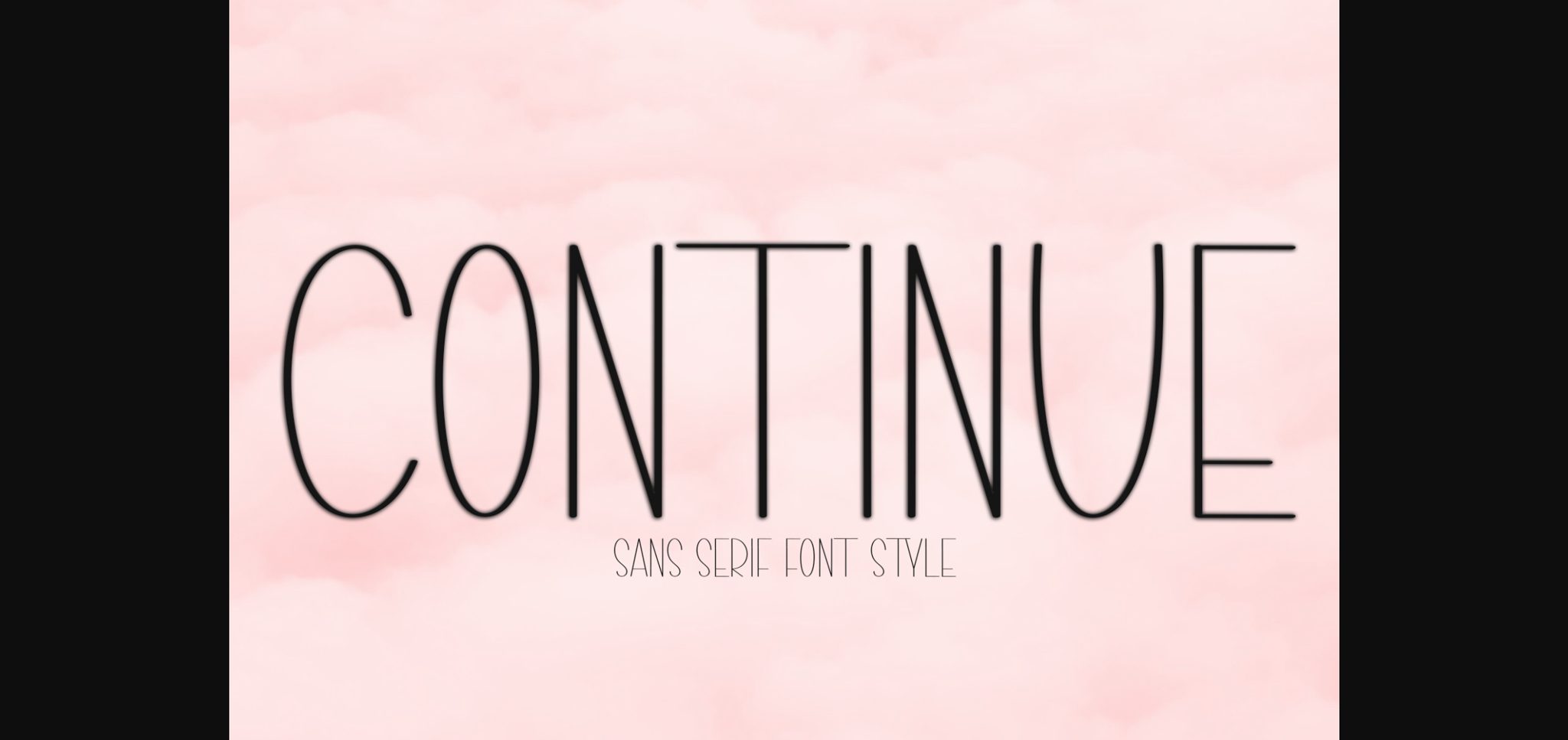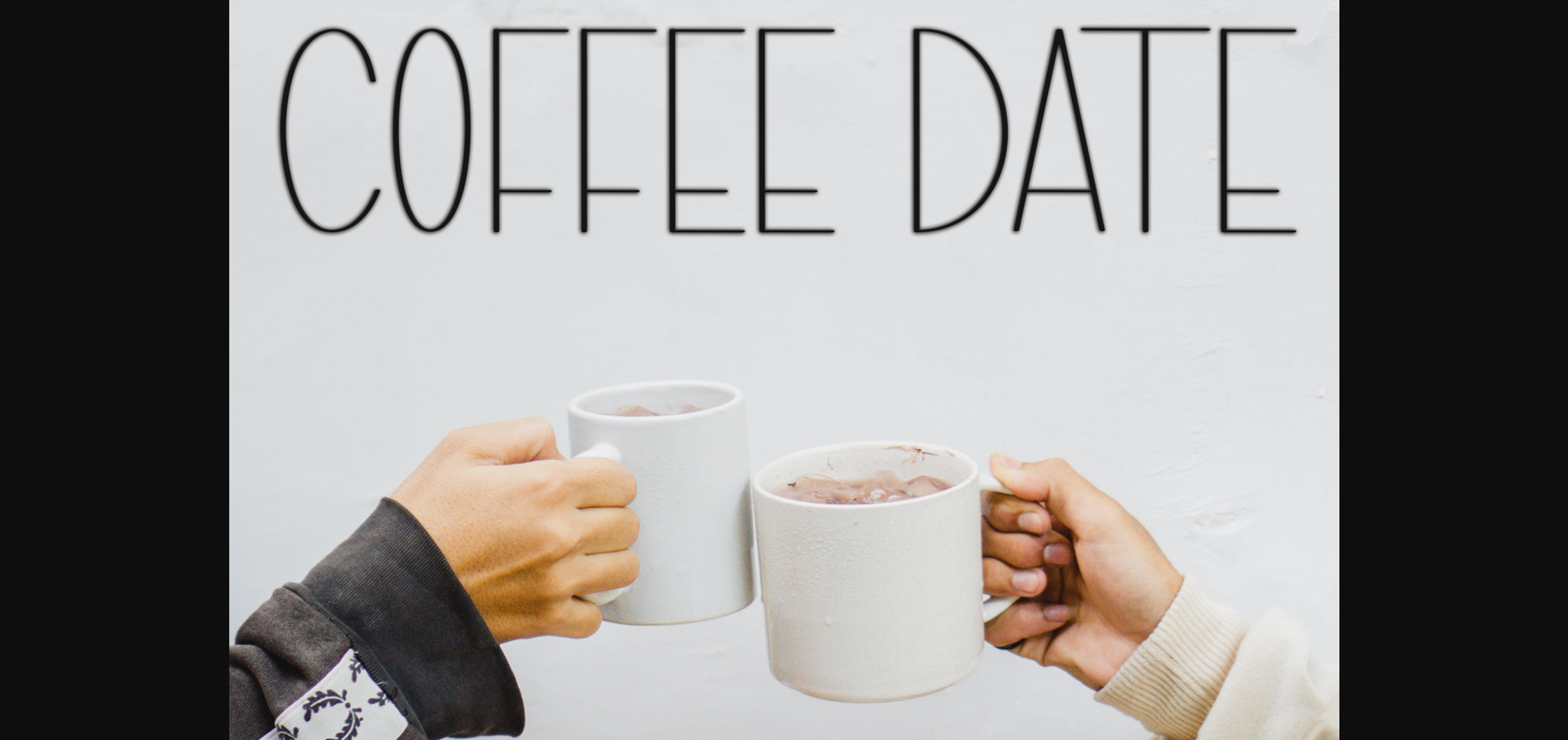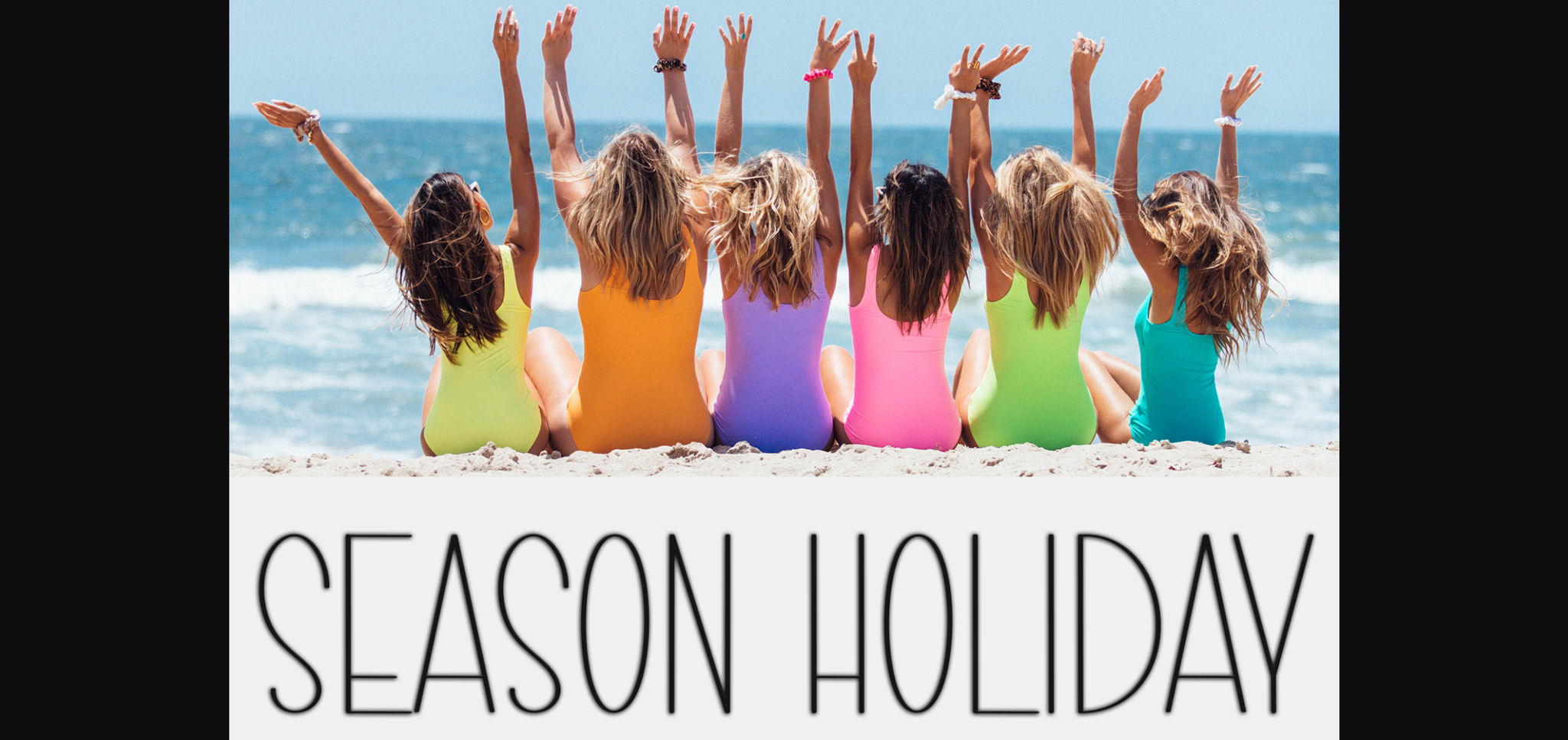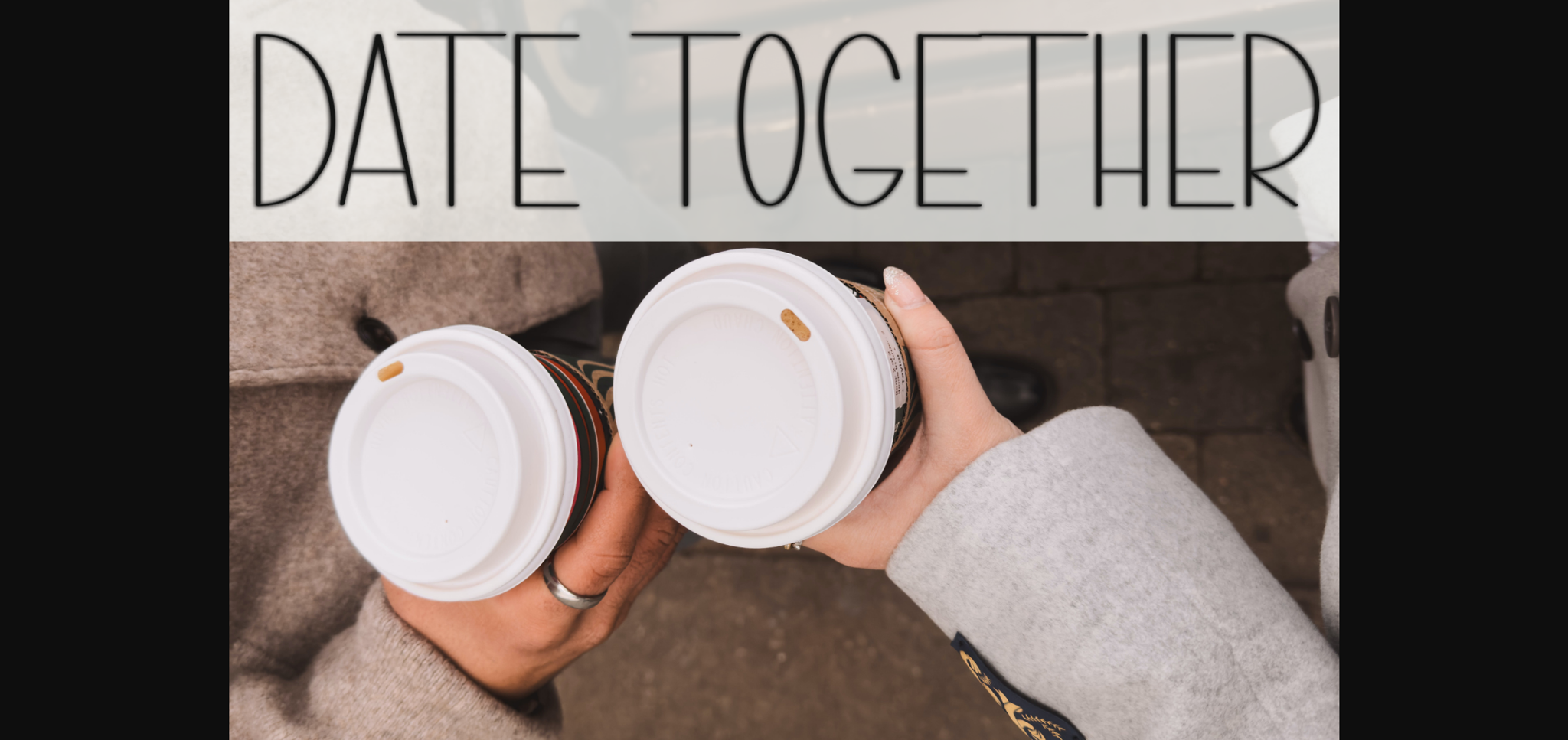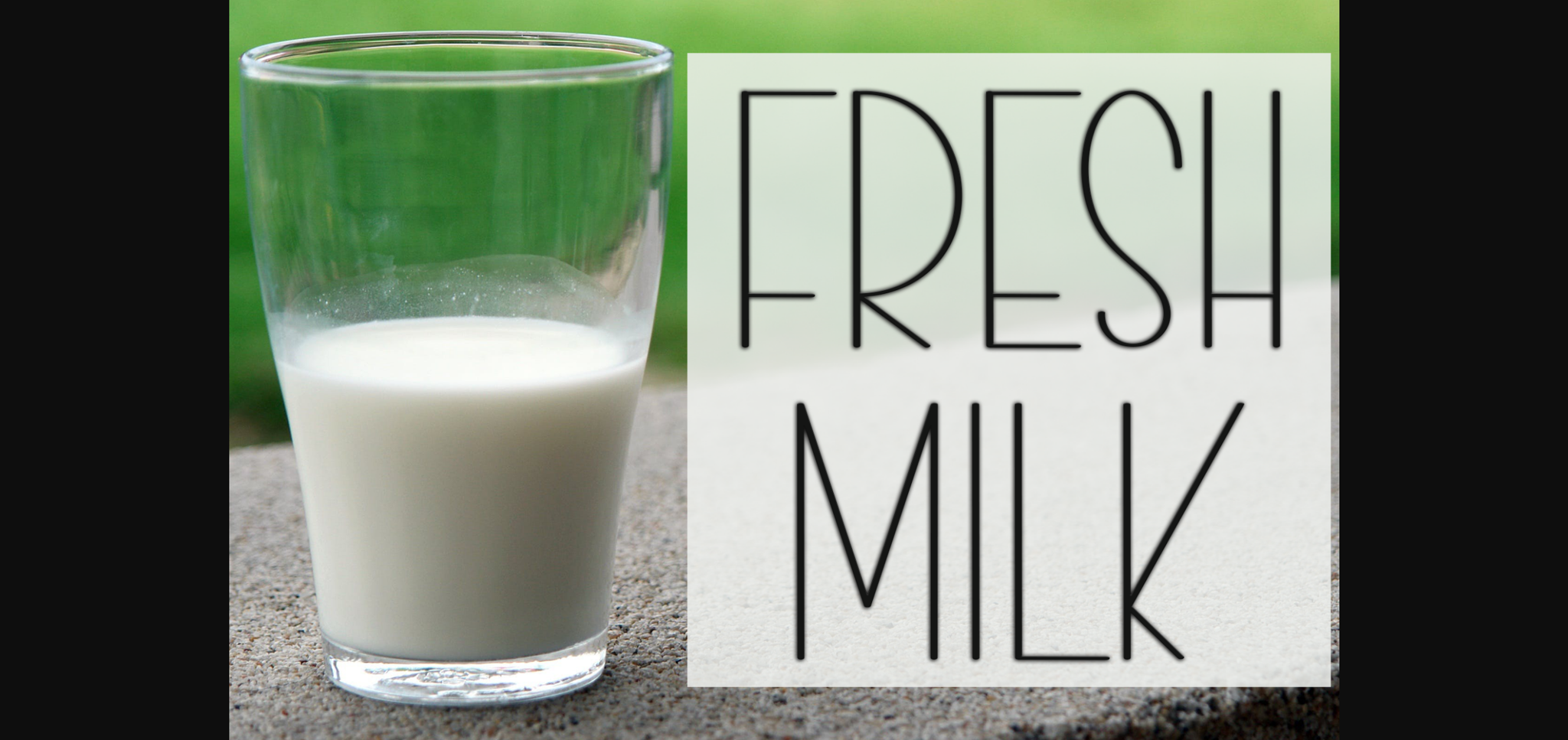
About Continue Font
Continue is a cool and modern sans-serif font. Whether you’re using it for crafts, digital design, presentations, or creating greeting cards, this font has the potential to be your go-to font, whatever the occasion.